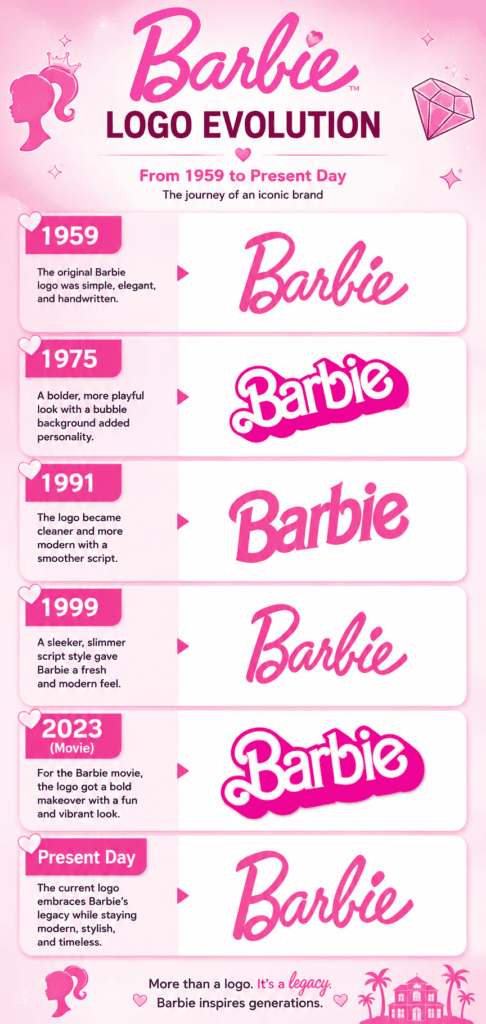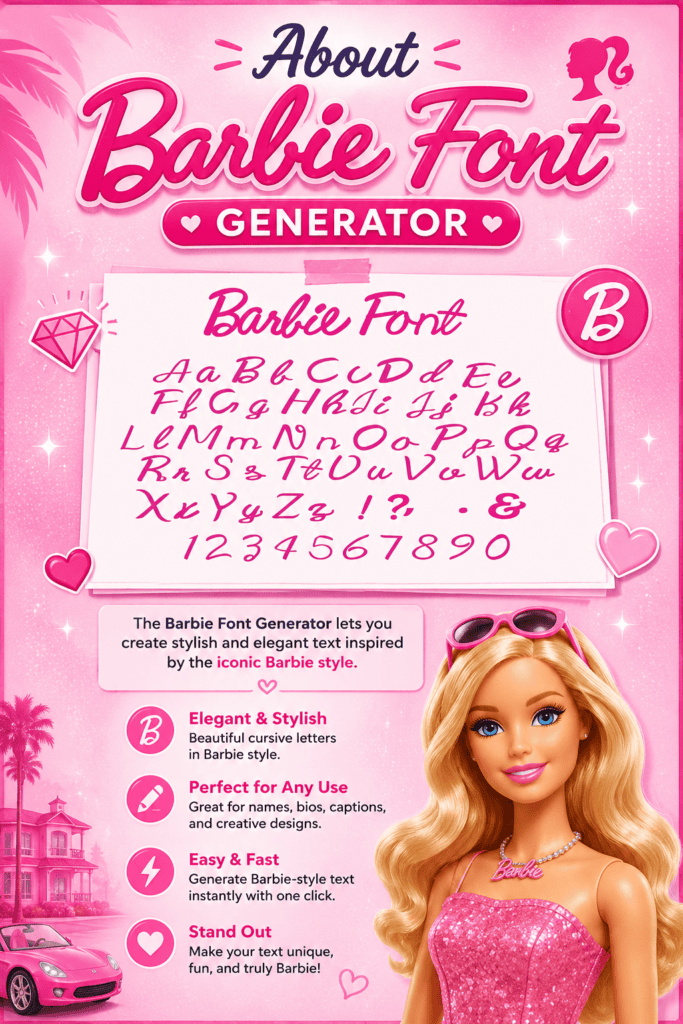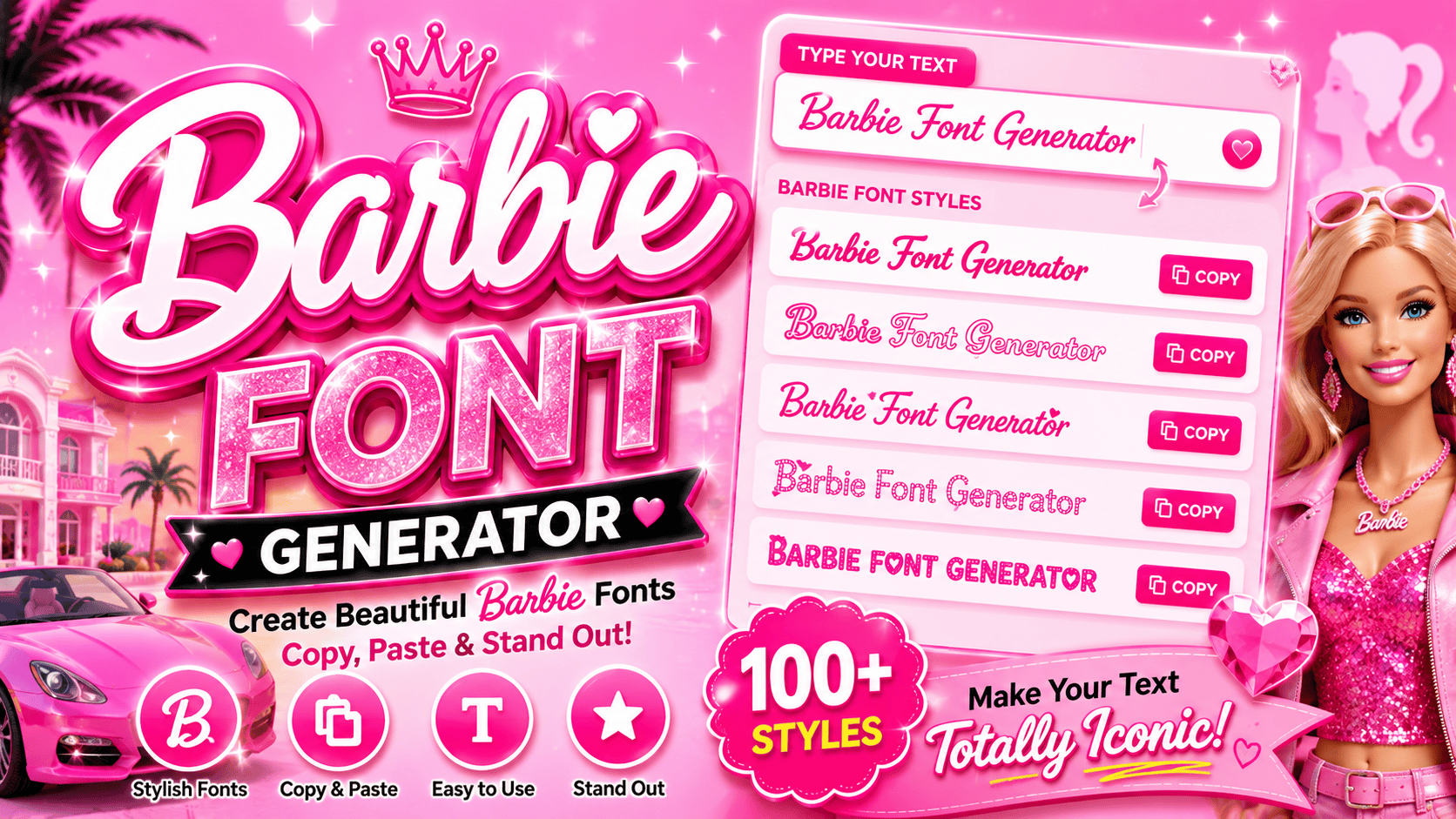
Generating an iconic aesthetic requires more than standard typography. As a designer, I witness how this creative tool transforms ordinary typography into vibrant cultural statements, instantly elevating personal branding and driving immediate consumer brand recognition.
Manipulating customized text designs unlocks psychological layers of nostalgia. My professional experience proves that embedding a unique personality within digital assets disrupts typical algorithmic feeds, allowing standalone phrases to capture attention through pure, unadulterated energy.
About Barbie
Experiencing design shifts reveals that feminine style challenges traditional corporate logos. This distinct brand color isn’t just marketing; it actively alters gender representation frameworks globally. We witness a unique humanizing element through these visual choices.
Our analytical perspective rejects simple superficiality. True dolly glamour weaponizes nostalgia to construct an attention-grabbing matrix where vibrancy dictates consumer behavior. Modern digital users utilize a generator tool to replicate this exact tactical aesthetic instantly online.
Brand History
Deconstructing historical milestones shows how Ruth Handler initiated a massive revolution. Later, the bold redesign mirrored the rising women’s movement, proving that an original script font could transition seamlessly from childhood playthings into cultural statements.
Achieving true brand maturity required navigating the chaotic Y2K digital expansion. Decades later, director Greta Gerwig revitalized this trajectory, igniting the global Barbiecore phenomenon that recontextualizes historical design elements for contemporary mainstream audiences everywhere completely.
Evolution of the Barbie Logo (by Era)
1959
As a design practitioner, the 1959 American Toy Fair debut showcased immense distinctiveness. That vintage, handwritten-style aesthetic entirely rejected standard licensed fonts, injecting an unrefined brand energy that defied the sterile geometric treatments of eras.
Our psychological connection to this iconic design history stems from its approachability. When Ruth Handler birthed the toy company legend in New York City, she avoided a dated look by choosing highly irregular, custom letterforms.
1975
The 1970s marked a radical pivot toward thick, volumetric typography, introducing playful curves that challenged traditional elegance. This bold evolution proves that brand recognition doesn’t always require thin, delicate script typefaces to successfully project confidence.
Stepping away from traditional monochrome heritage, this specific era embraced a sprawling cultural symbol via intense color ownership. This visual audacity firmly established a globally recognized brand footprint, outshining the later saturation of McDonald’s red.
1991
By 1991, a major corporate logo redesign streamlined the entire graphics system. It wasn’t just about nostalgia; the company engineered a highly readable, versatile typeface that preserved the fundamental essence of their historical typography strategy.
This era proved that brand history benefits heavily from structural visual restraint. As Totally Hair Barbie became the best-selling toy phenomenon of 1992, this specific iteration proved its massive commercial worth across global retail markets.
1999
As the new millennium rapidly approached, the year 1999 introduced a highly structured look. Designers developed Barbie Medium as a downloadable font, allowing passionate enthusiasts to deploy the aesthetic for their own personal use projects.
This historic phase reflected a broader digital transition. Alternative lookalike fonts like Bartex and Bontex emerged online, offering a free for personal use license that allowed early web creators to easily experiment with customized typography.
2023 (Movie) / Present Day
Today, the current logo leans heavily into heritage nostalgia, utilizing a sleek hand-drawn cursive layout. By referencing the original look, the brand achieved a magnificent blend of deep historical tribute and crisp modern aesthetics perfectly.
This global pop-culture phenomenon sparked an explosion of Barbie-inspired designs. Fans worldwide utilize a web-based text effect generator to craft customized profile pictures and vibrant album covers, enjoying the unlimited use of digital creative tools.
Barbie-Style Font Names / Lookalike Fonts
As an experienced designer, I always bypass restricted assets by identifying functional alternatives. Finding a matching style requires evaluating the playfulness embedded in lettering. Tracking these unique aesthetics ensures compliance while retaining retro brand energy.
Replicating the traditional cursive wordmark hinges entirely on selecting similar fonts possessing those iconic, bouncy geometric traits. My projects succeed because I scrutinize every sweep, focusing specifically on how distinctive curves project youthful consumer confidence.
How Can I Optimize My Text Design In The Barbie Font Generator?
Optimizing your typography requires balancing kerning with precise color contrast. I suggest prioritizing readability by adjusting font sizes significantly. Always leverage high-quality vector outputs to ensure custom creations remain sharp across various digital platforms.